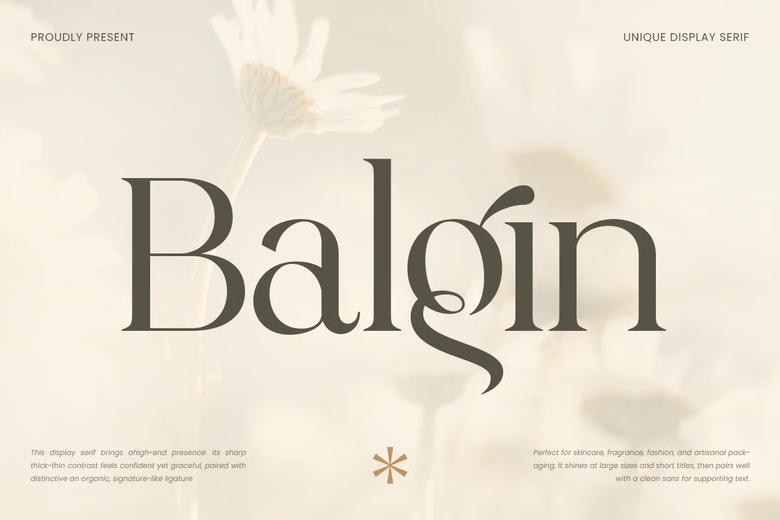
Balgin Font
Balgin is an exclusive display serif font formulated to present classiness, personality and high visual symbolism. Balgin with its unique serif details, strong contrast, and elegant structure can be used in logos, branding, headlines, posters, editorial designs, packages, and creative visual works.
Designed to be both classically serif and yet somehow with a contemporary display aesthetic, Balgin provides a good reading experience and still manages to have a distinct and artistic touch to it. The expressive serif typeface is the most suitable typeface in fashion brands, luxury products, magazines, creative studios, and other companies that require a timeless but bold typographic statement.
Balgin Serif Font